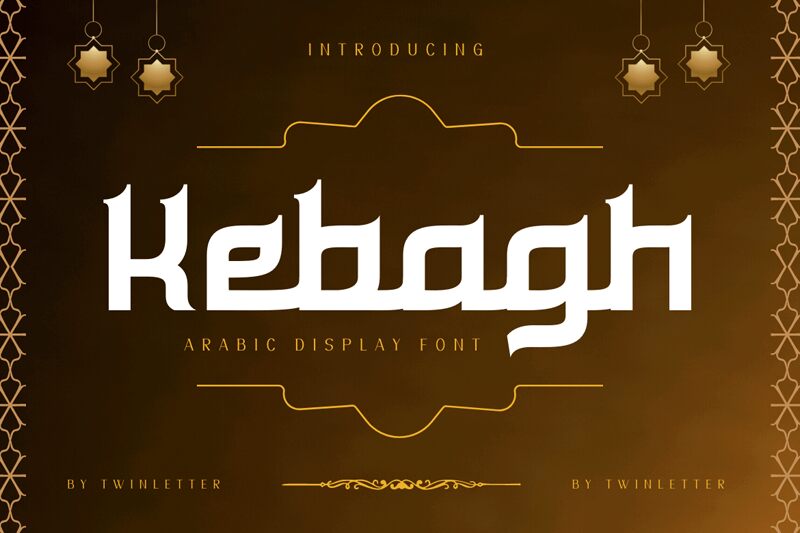
Kebagh-Regular
Discover Kebagh, a captivating Arabic font by Twinletter. With its semi-expanded width, this foreign typeface adds a touch of elegance to your designs. Whether you're working on magazine covers, packaging, or any other creative project, Kebagh offers versatility and style. Explore our collection and unleash your creativity with this unique font. From traditional to modern designs, Kebagh is sure to impress.